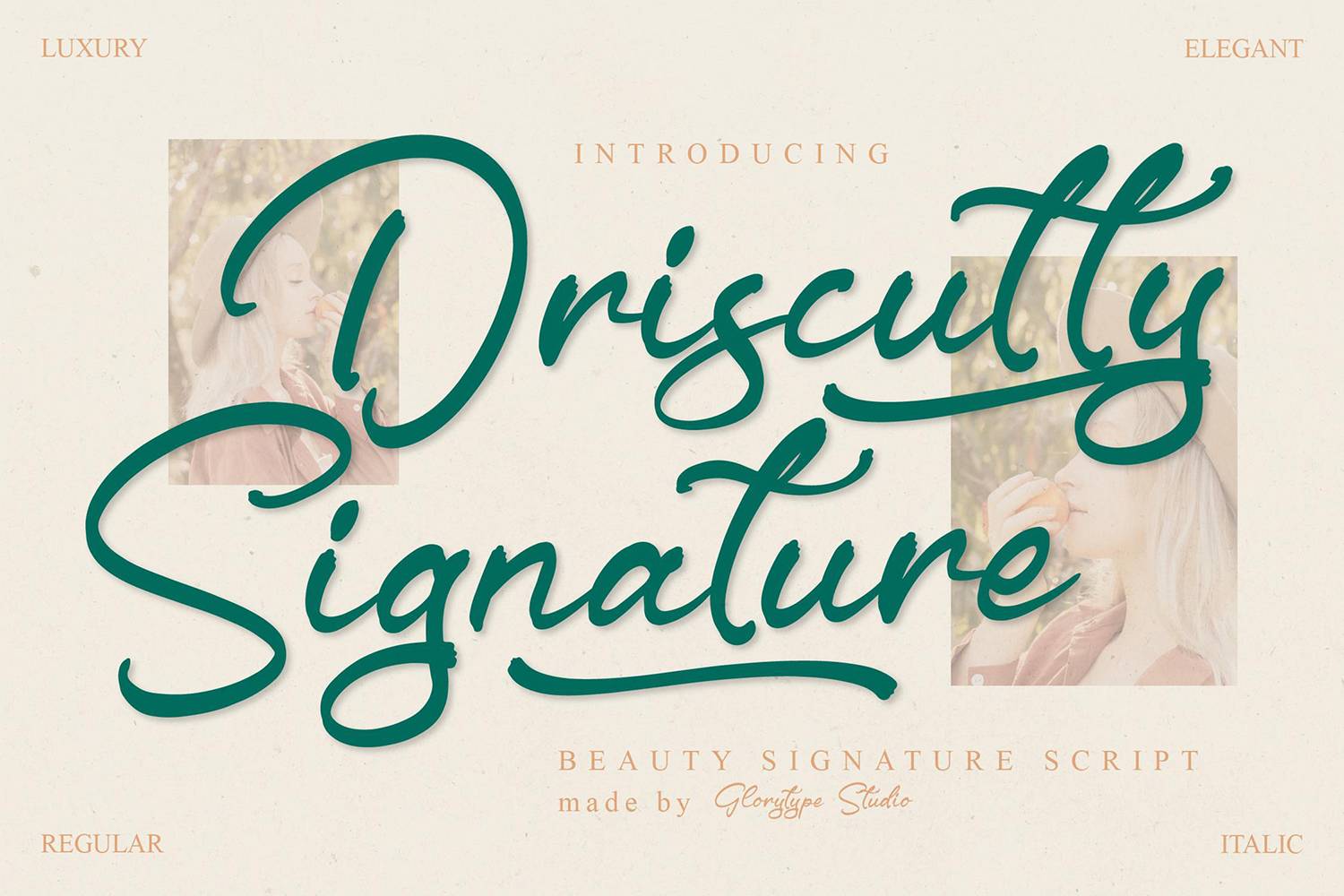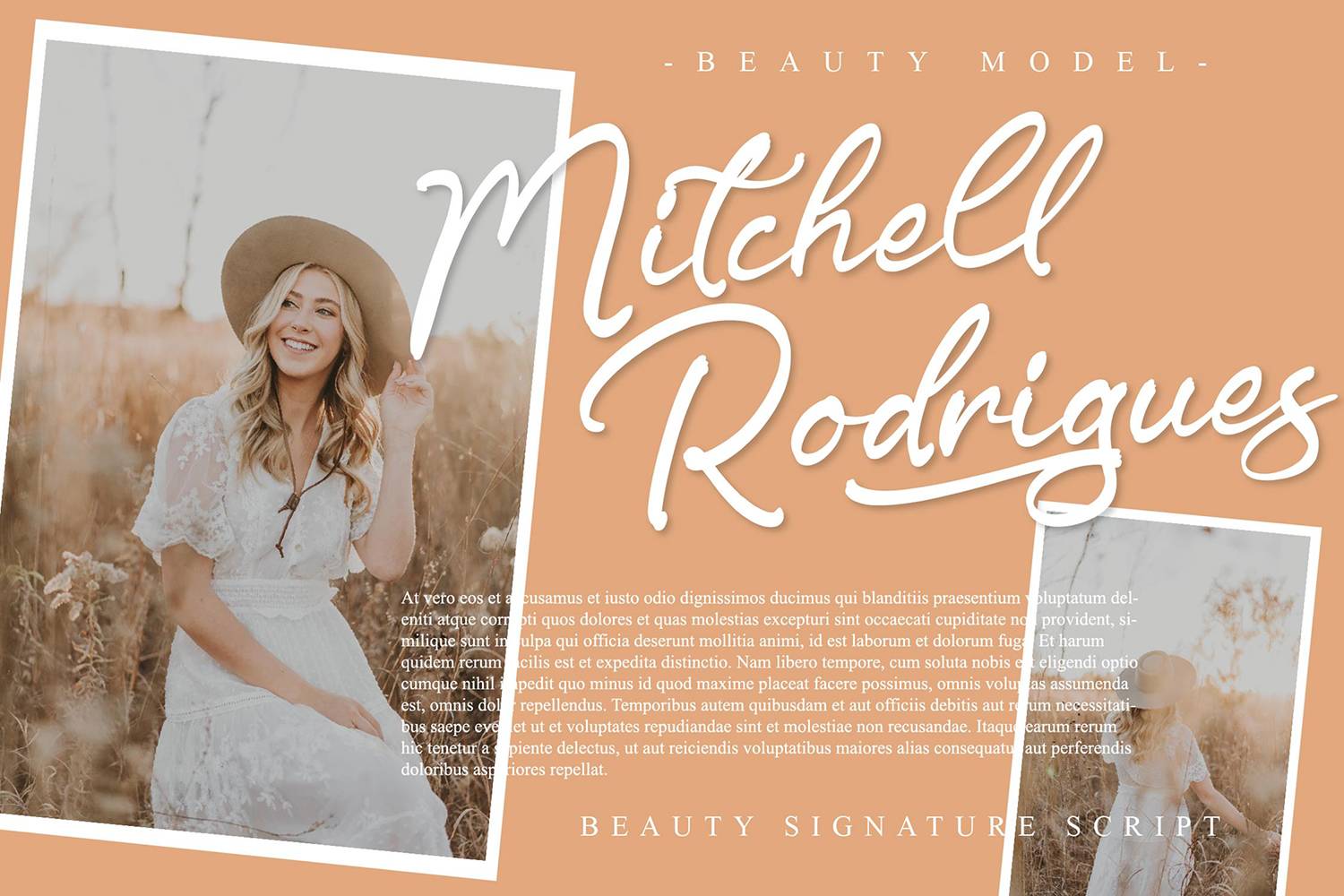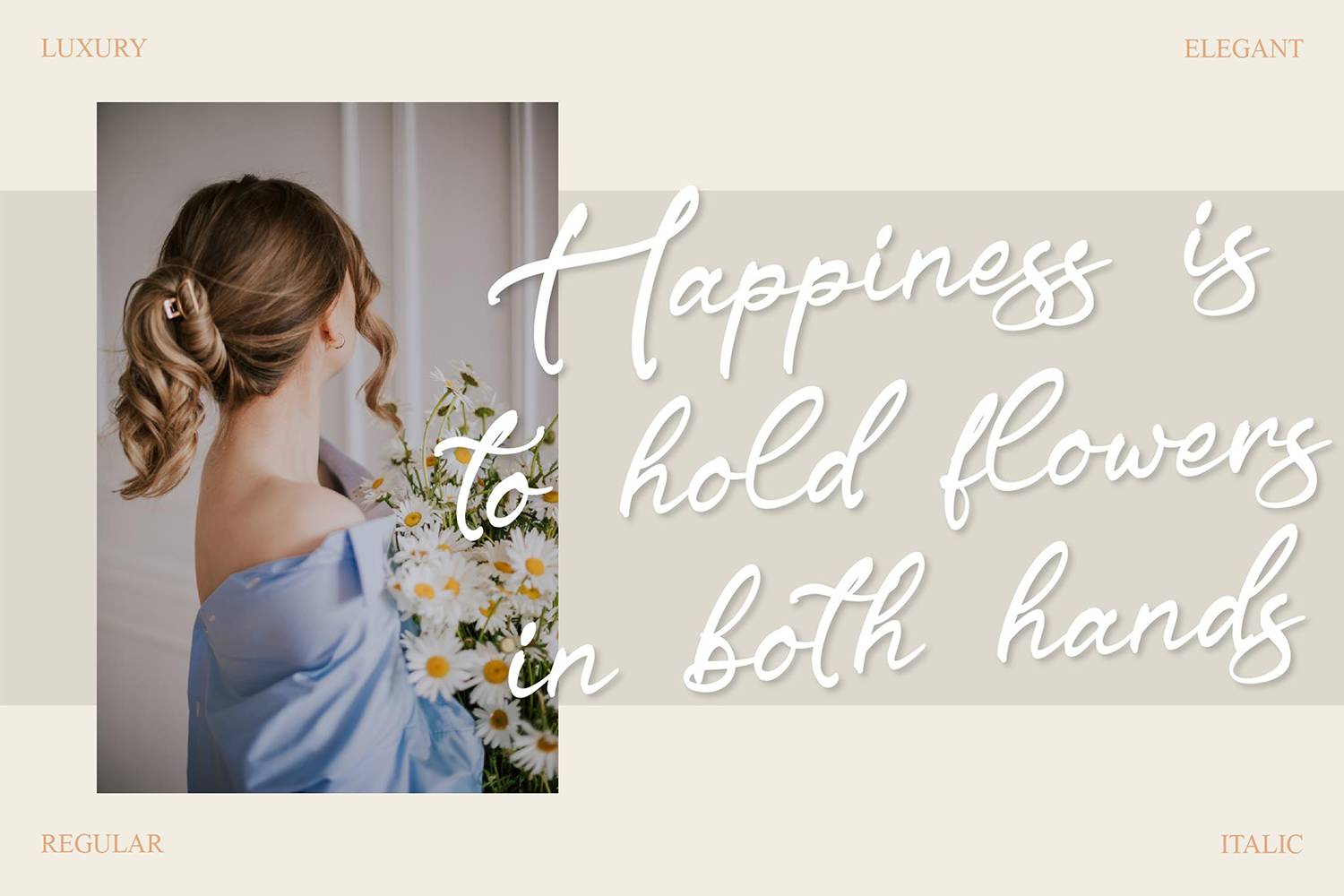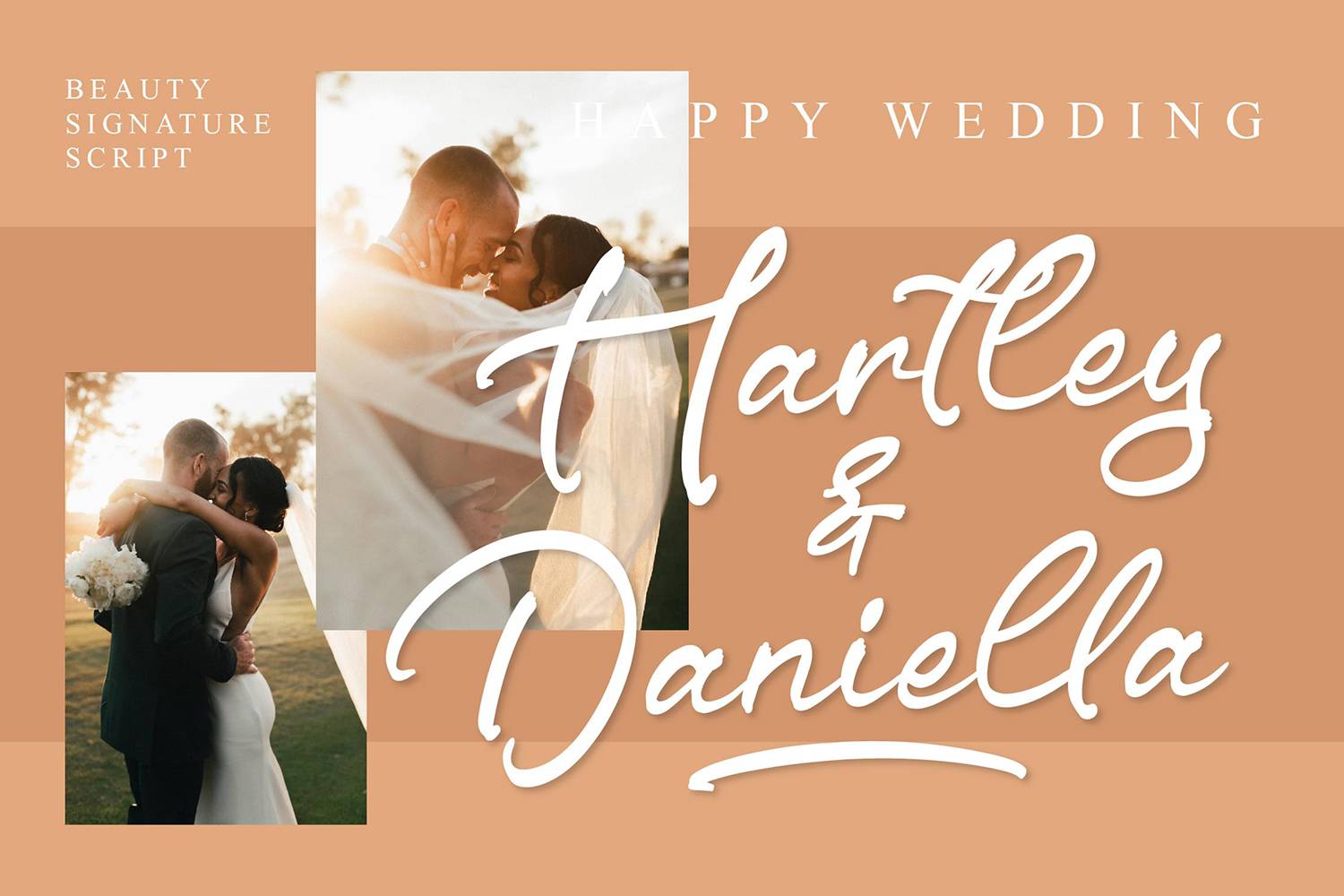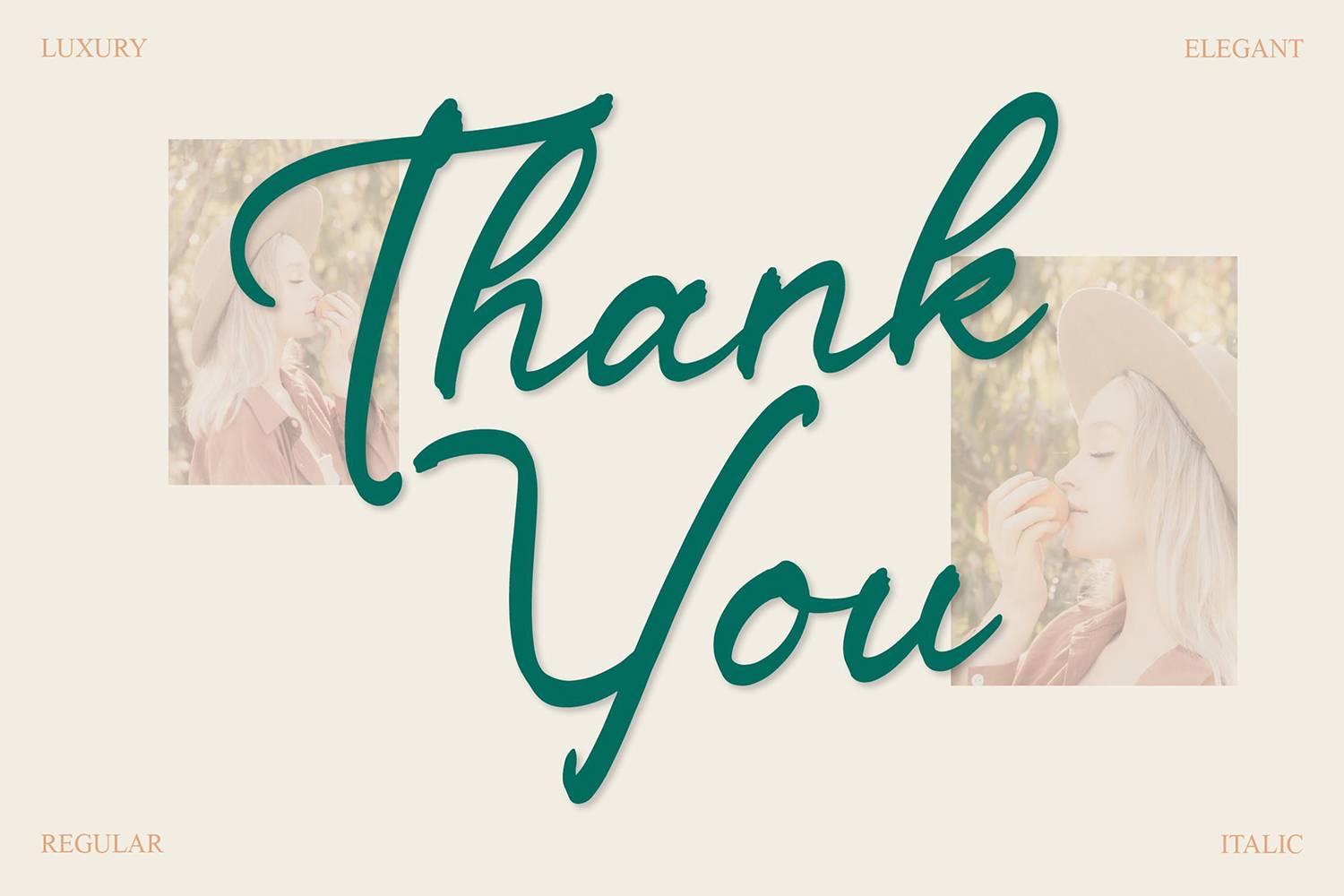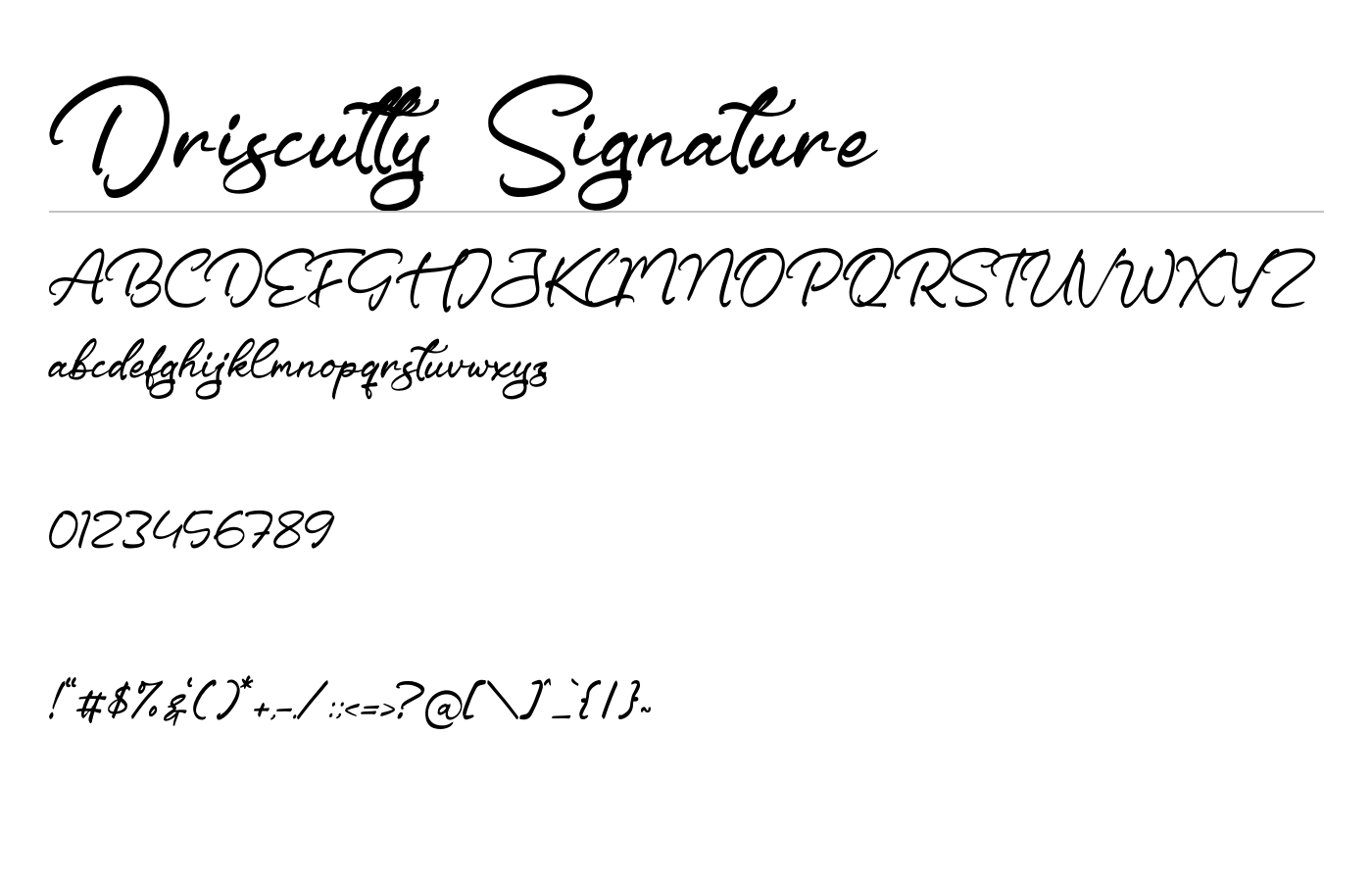
Driscutty Signature is a stylish, handwritten script font that exudes a modern yet personal touch with its smooth, flowing strokes and natural, casual elegance. Its moderately high contrast and slightly condensed letterforms make it perfect for branding, logos, invitations, and any design that aims to feel approachable and sophisticated. This font works beautifully where a warm, authentic, and creative atmosphere is desired.
Driscutty Font
About Driscutty Font